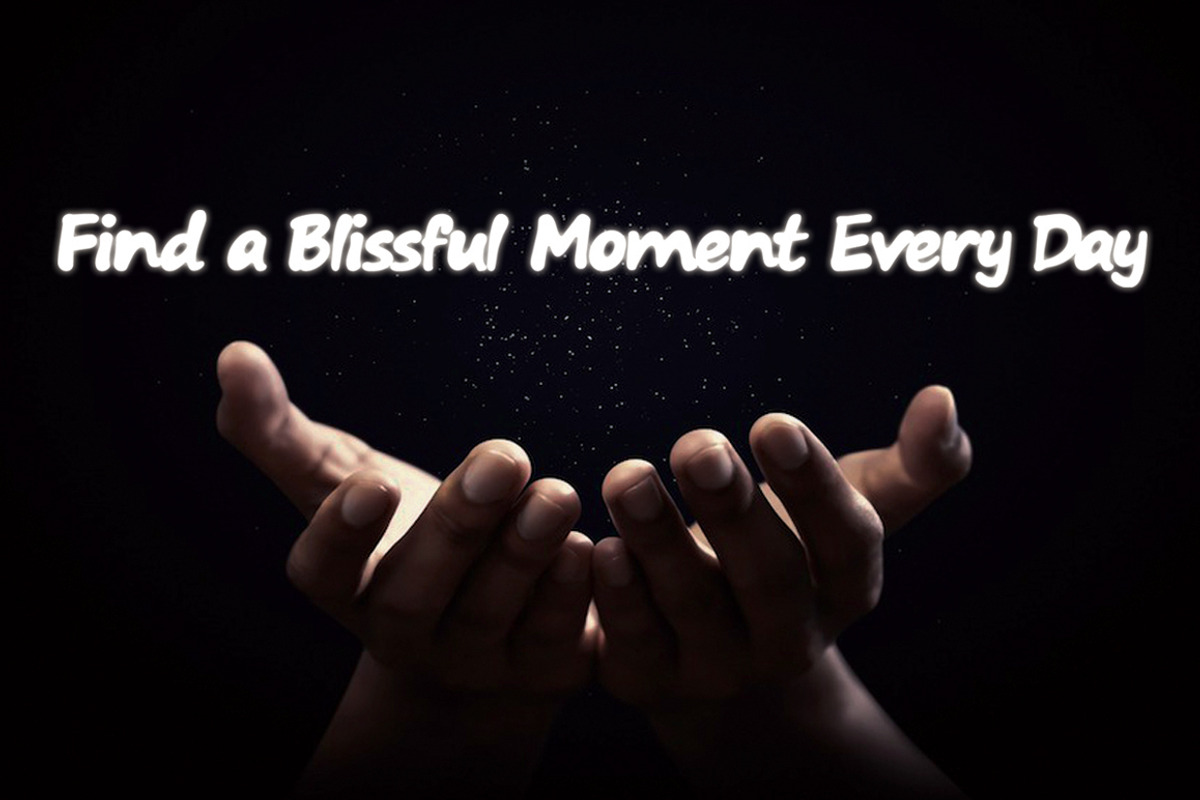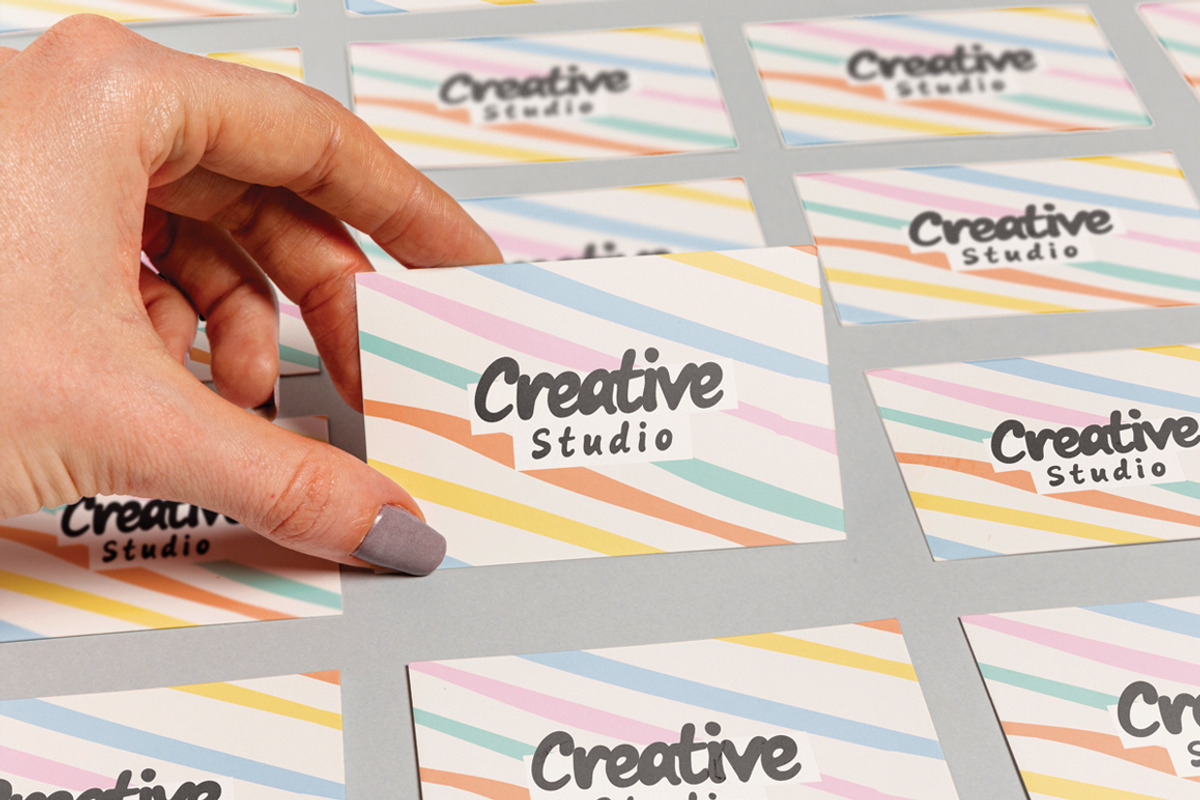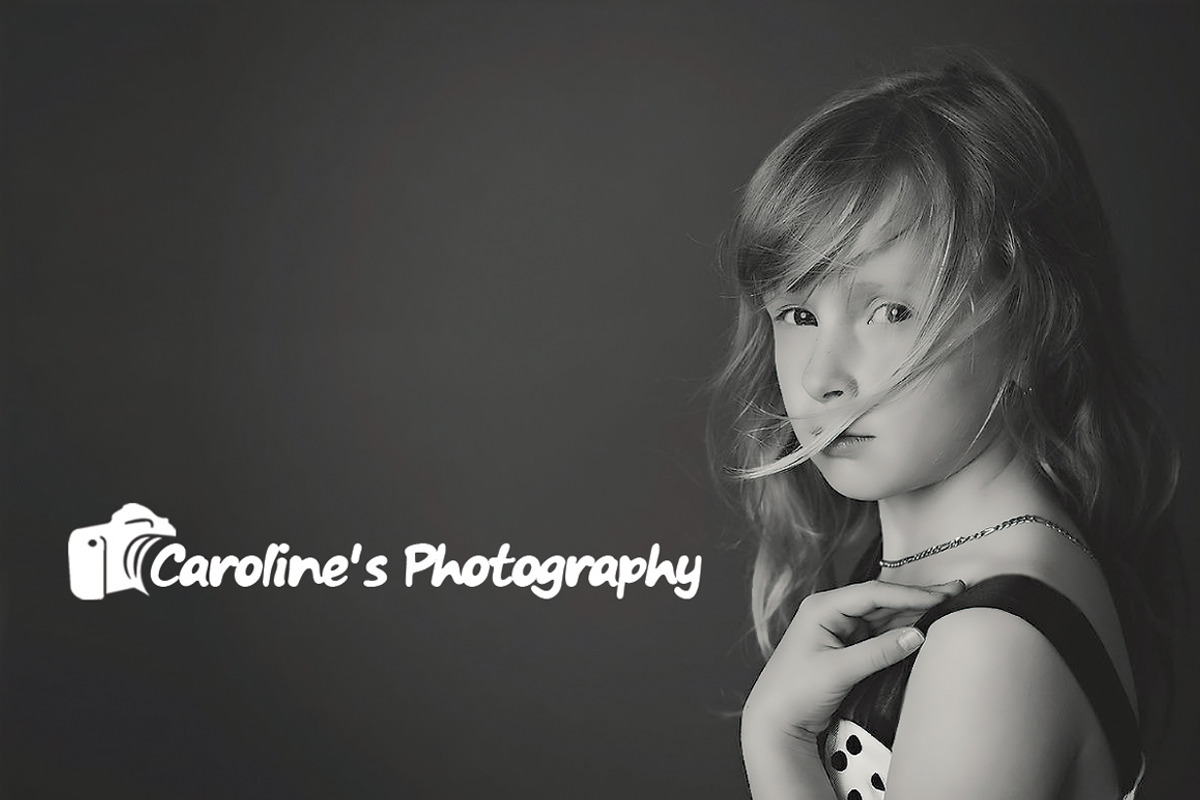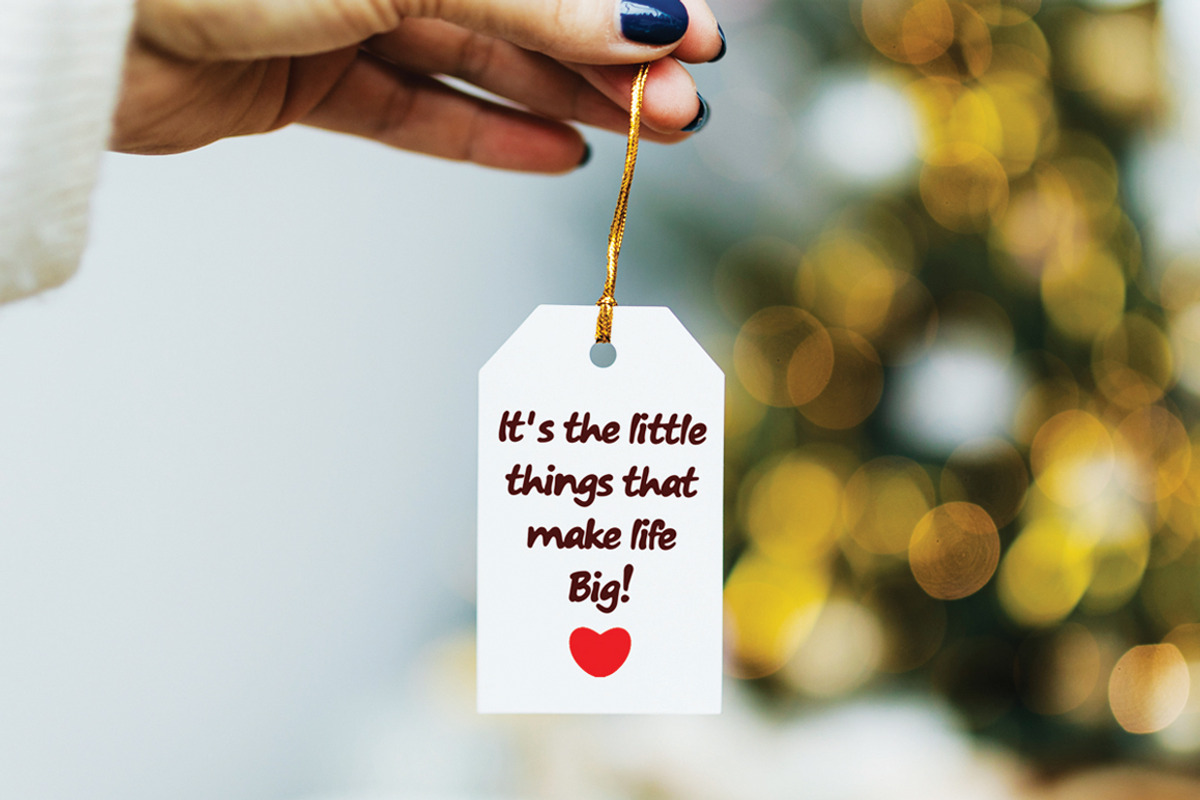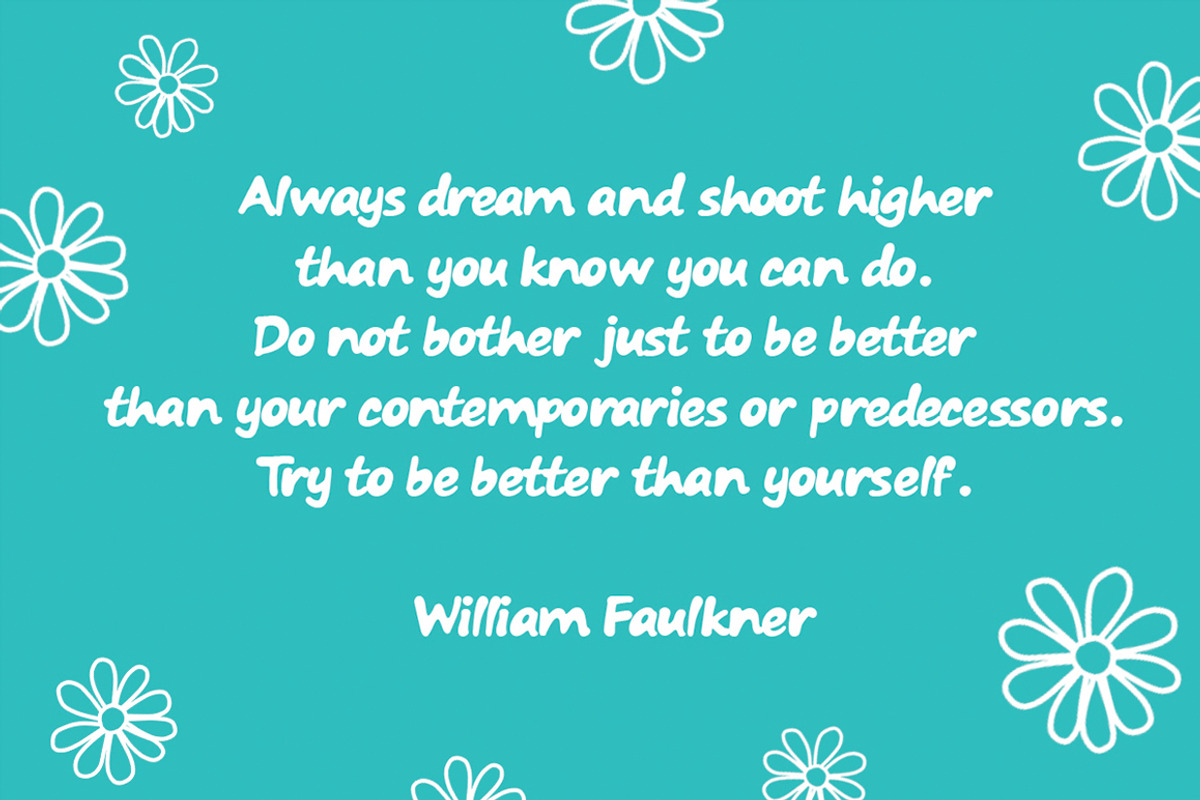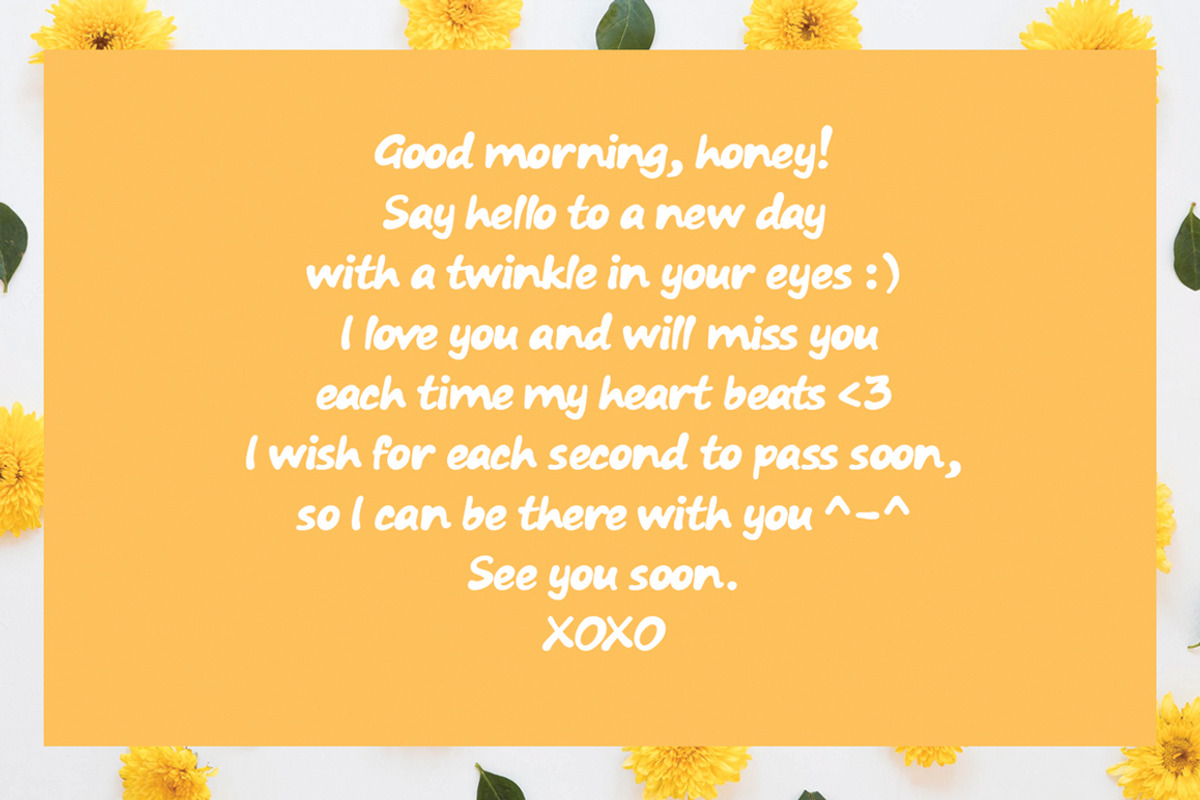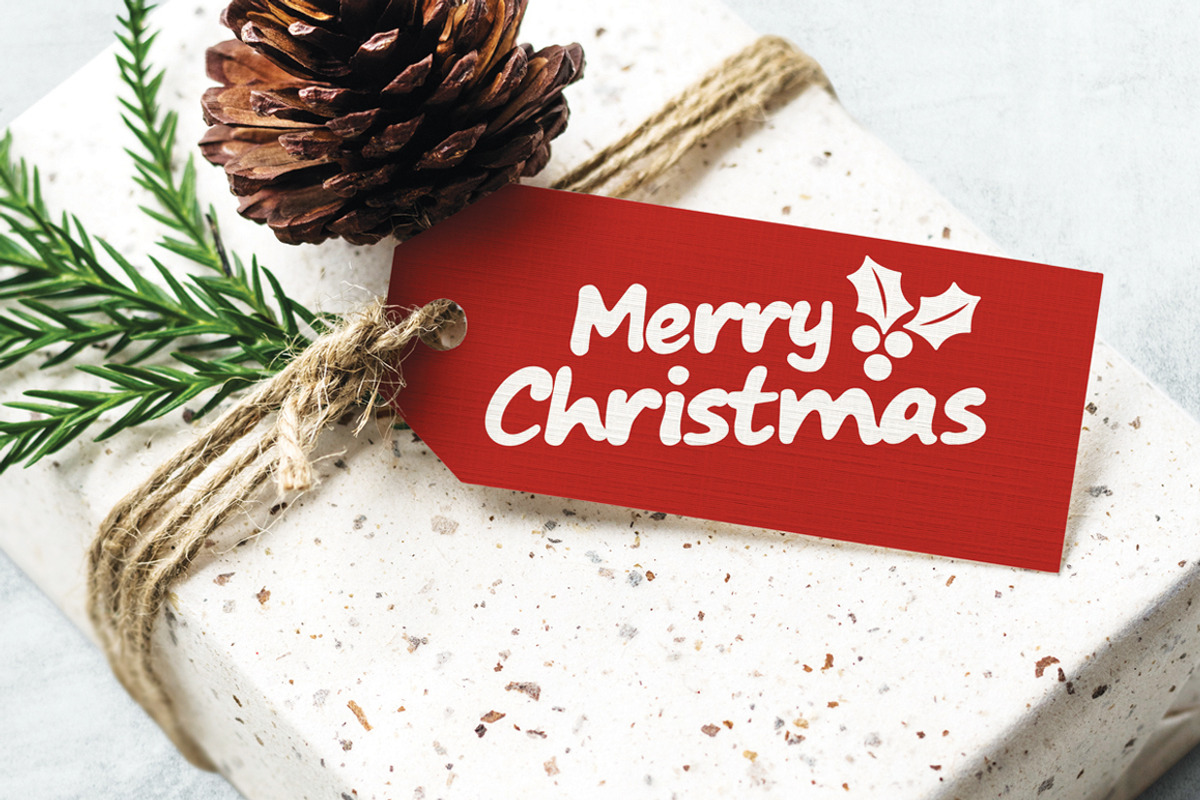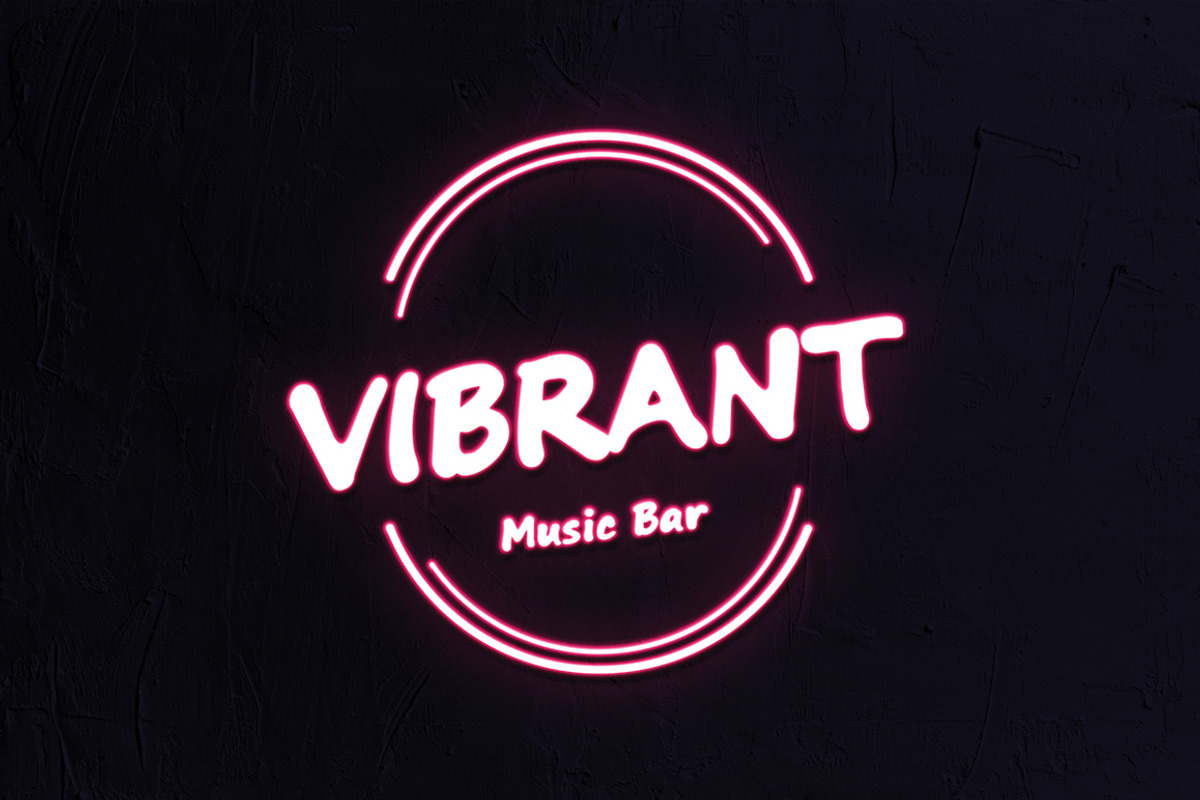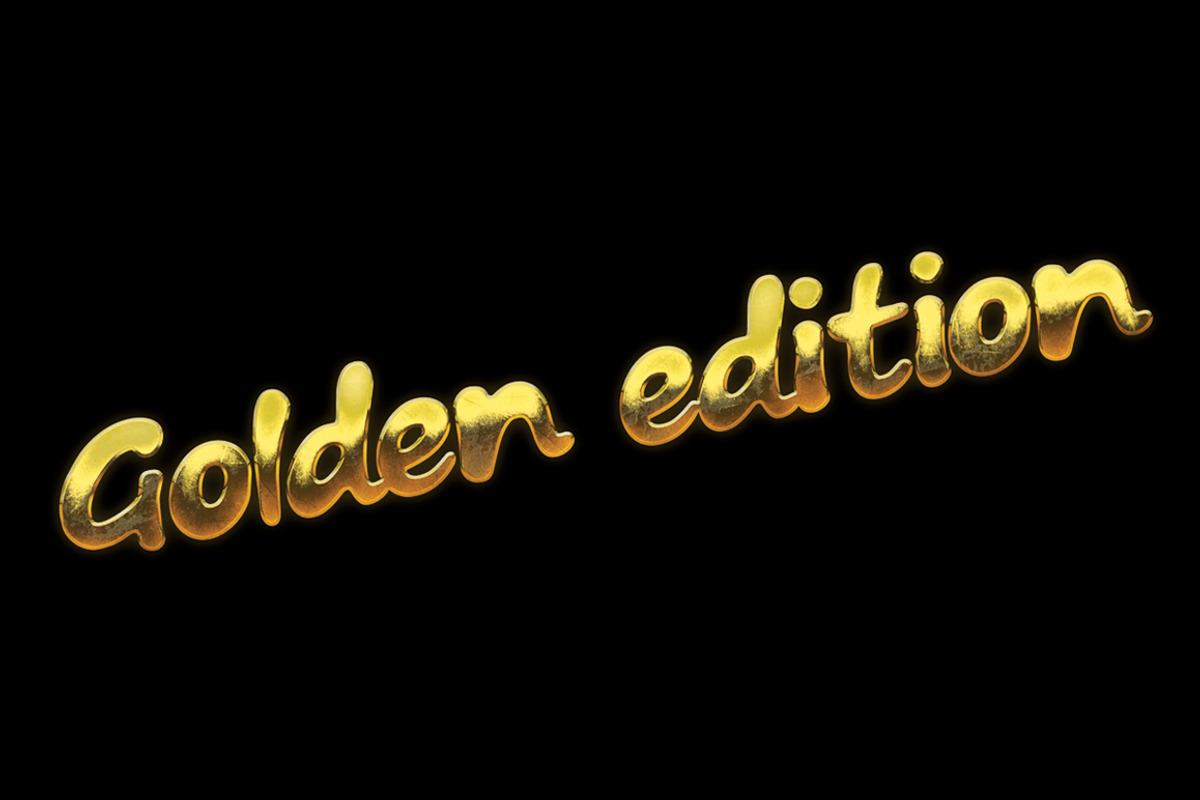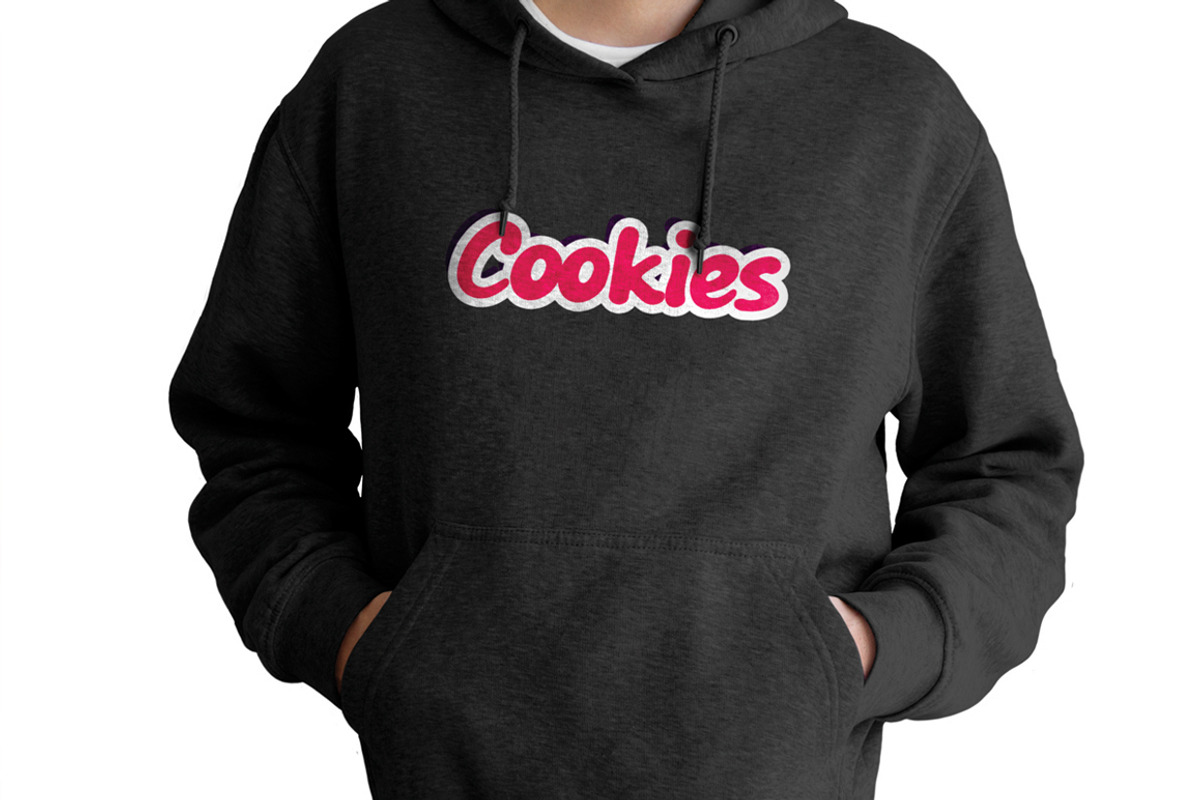
Little Moments Font
Little Moments is a gorgeous handwritten font that is perfect for any romantic occasion. Its graceful curves and classy calligraphy make it the ideal choice for adding a touch of charm and elegance to your project.